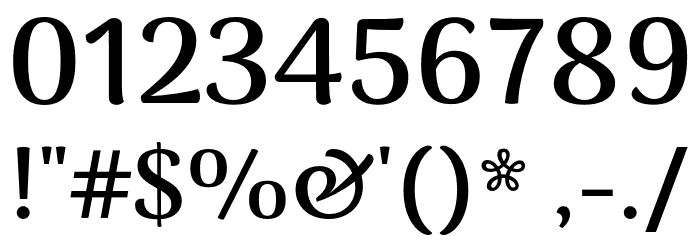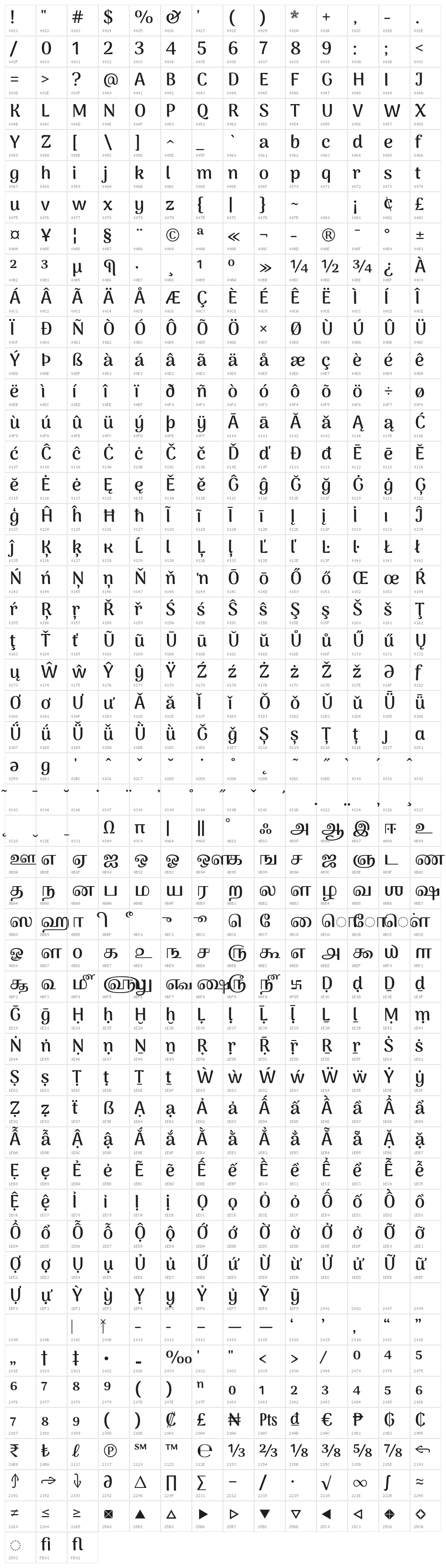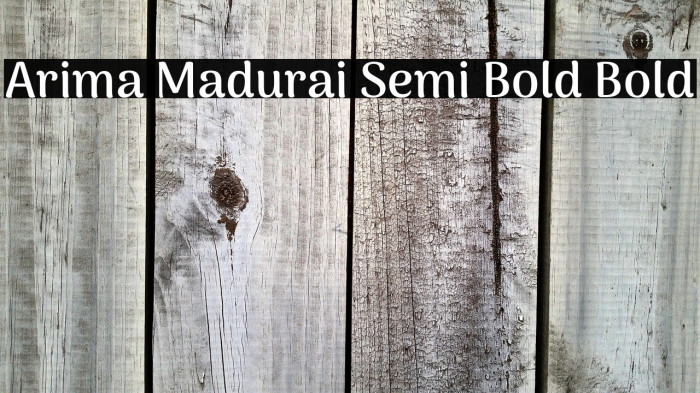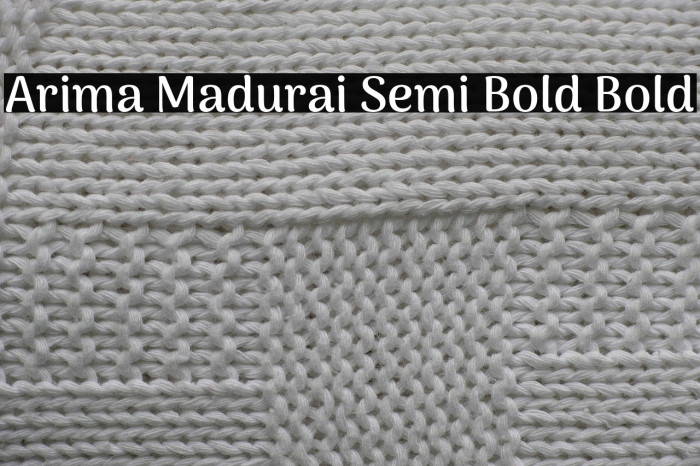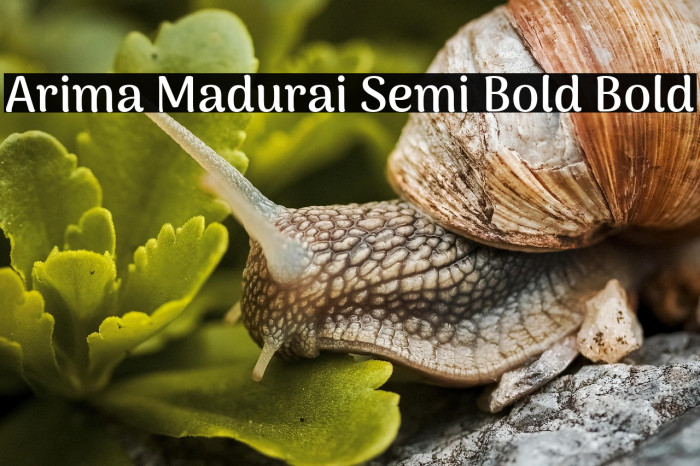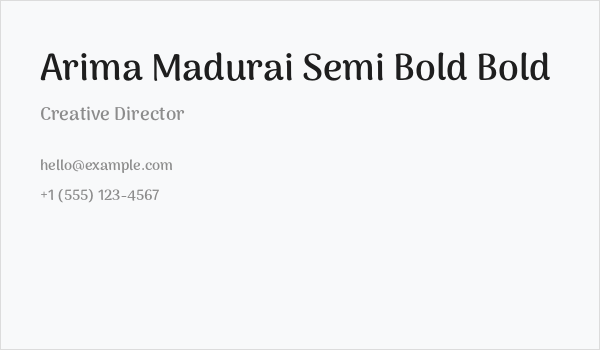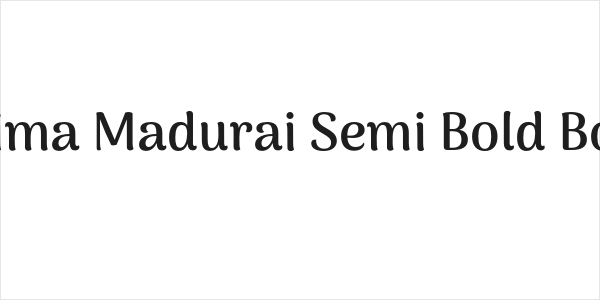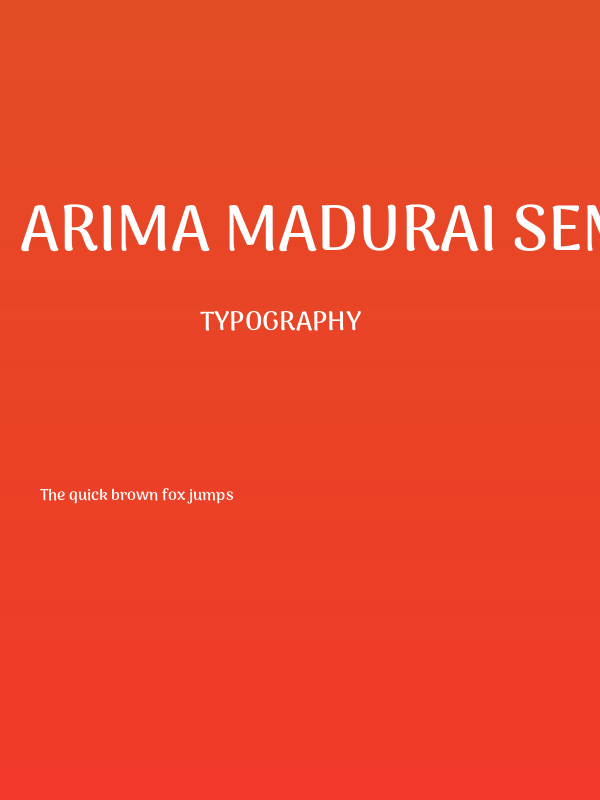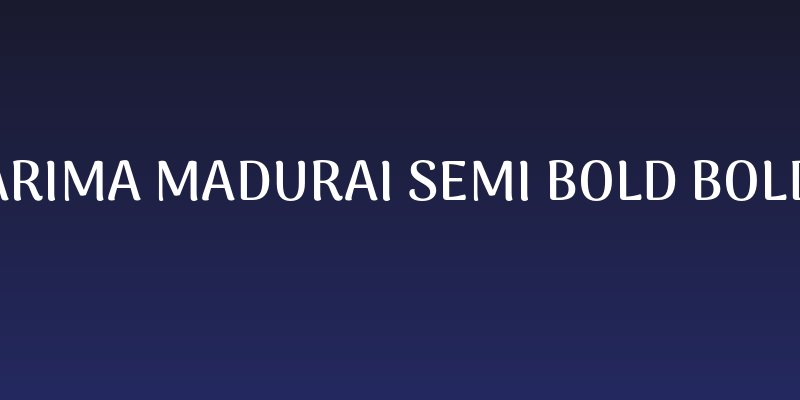
Arima Madurai Semi Bold Bold Font
Arima Madurai Semi Bold Bold Description
This font features a playful yet structured design, combining elements of both traditional and modern styles. The characters are slightly rounded, giving a friendly and approachable feel. The uppercase letters are bold and assertive, while the lowercase letters maintain a consistent flow with subtle curves. The numerals are clear and distinct, ensuring readability. Special characters are well-integrated, maintaining the overall aesthetic. This font balances elegance with a touch of whimsy, making it versatile for various design needs.
| Proposed Projects | Ideal for branding, advertising, children's books, and creative projects that require a friendly yet professional appearance. |